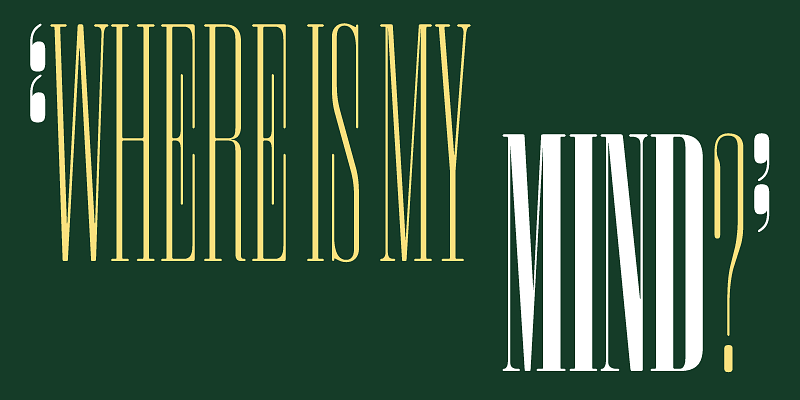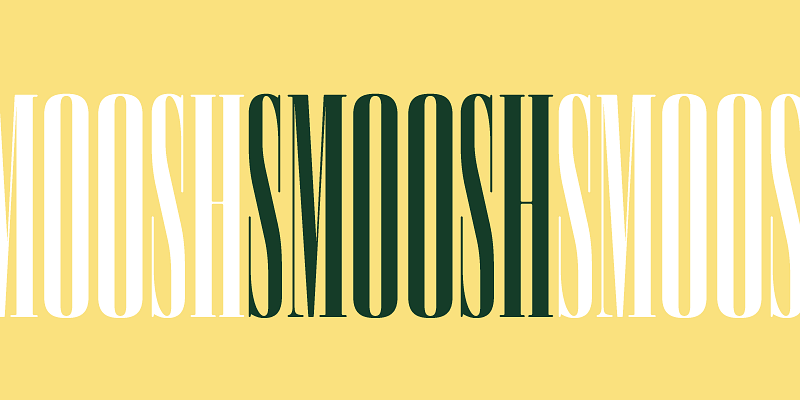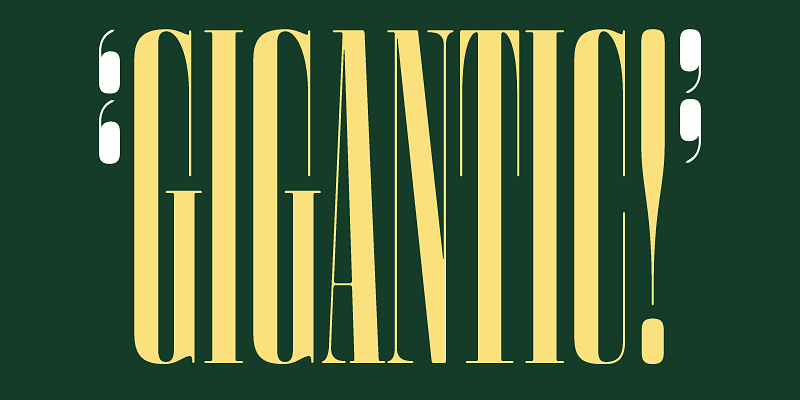
Smoosh is a hyper-compressed, aggressively high-contrast typeface with extremely pointy serifs. The delicate, obnoxious forms give text a “That’s pretty, but what does it say!?” feel.